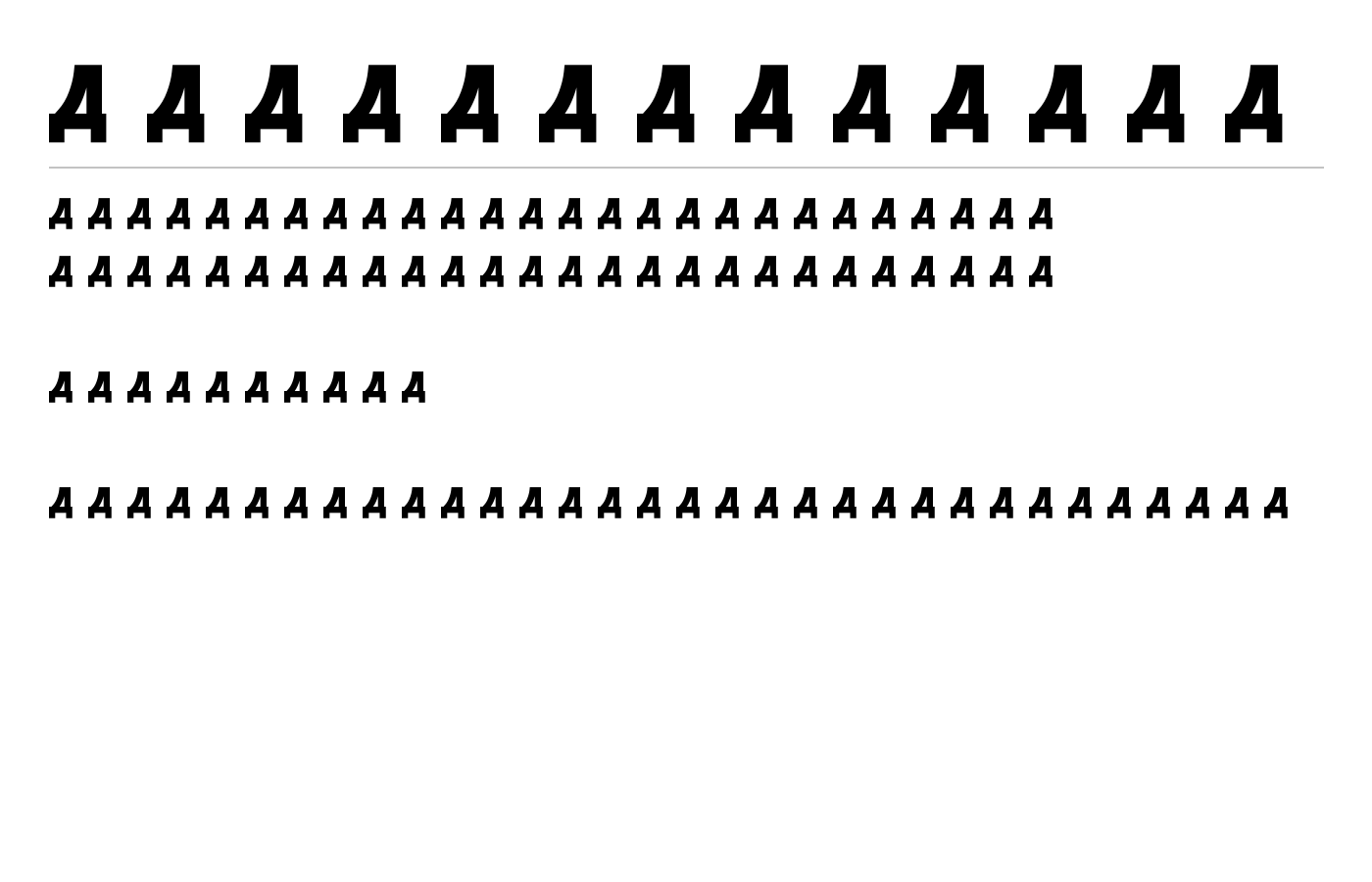
Alghorie Bald is a bold, slab serif font characterized by its strong, blocky serifs and high contrast between thick and thin strokes, giving it a sturdy and impactful appearance. With its condensed width and sharp, geometric letterforms, this typeface conveys a vintage yet robust personality, making it ideal for attention-grabbing headlines, logos, and packaging that require a memorable and authoritative presence. Its clear, structured design lends itself well to brands seeking a bold, classic look with a modern edge.
alghorie bald Font
About alghorie bald Font